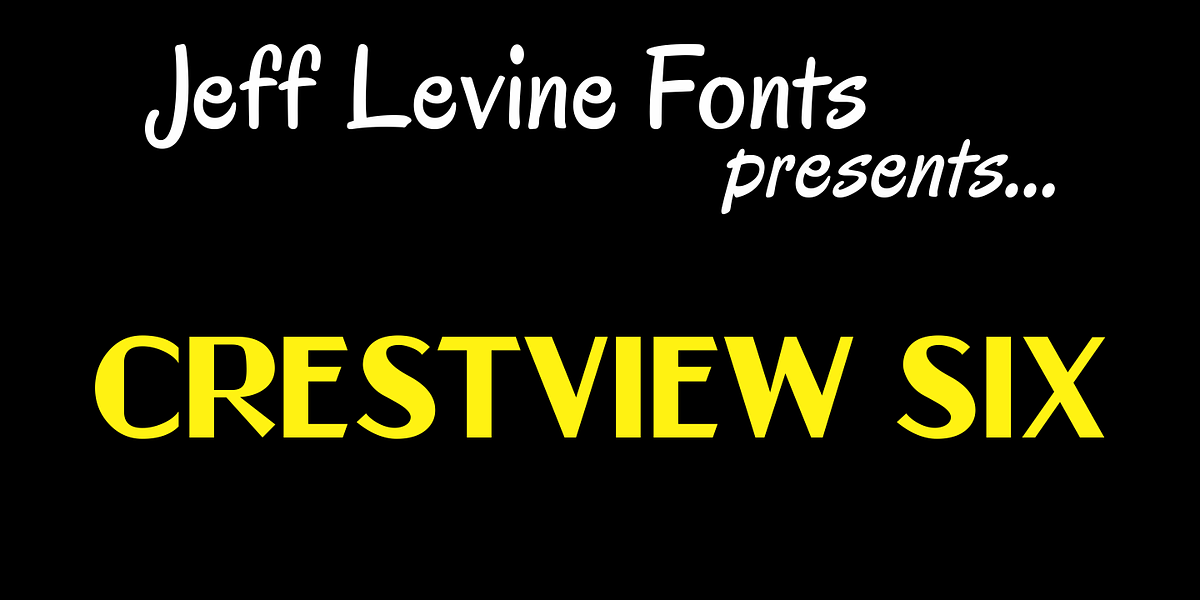
Crestview Six JNL
The hand lettering found on a small catalog sheet for decorative decals from the 1930s-1940s era was the perfect source material for Crestview Six JNL. Handmade typefaces or signage from past decades offer a wonderfully humanistic change from the perfectly-crafted designs of printer’s type (or digital type in the modern era).
The font’s name comes from the old alpha-numerical phone exchanges of the past.